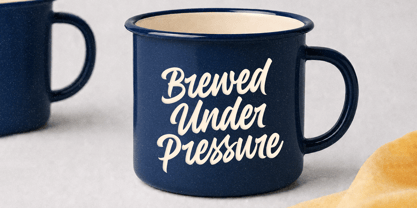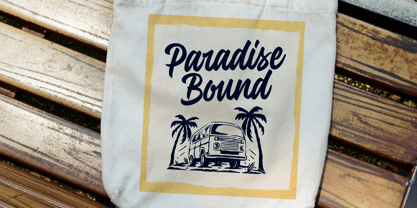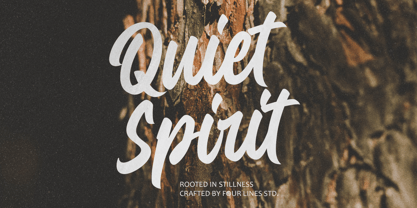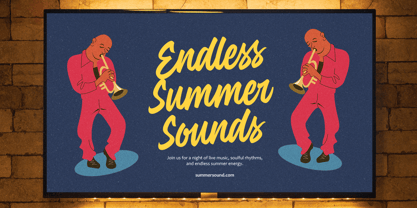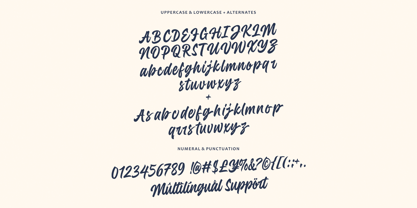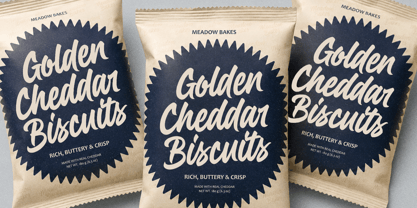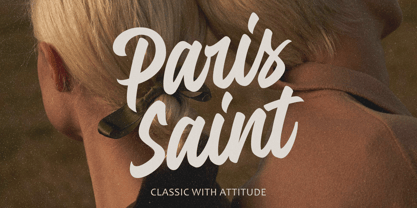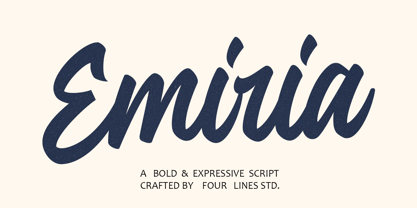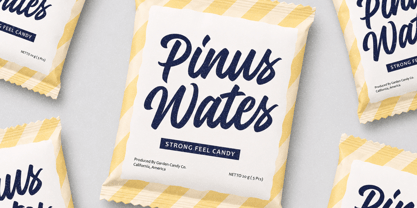
Emiria
by Four Lines Std
The Emiria Font Family was designed by Zain Fahroni and published by Four Lines Std. Emiria contains 1 styles. More about this family
Meet Emiria, a bold and expressive script font with a relaxed and friendly handwritten style. Its letterforms have a strong personality while remaining clear and easy to use across different types of designs.
Emiria is suitable for branding, logos, product packaging, posters, fashion, merchandise, labels, quotes, social media, and other display projects. Use it as the main lettering or pair it with a clean sans-serif font for a more balanced look.